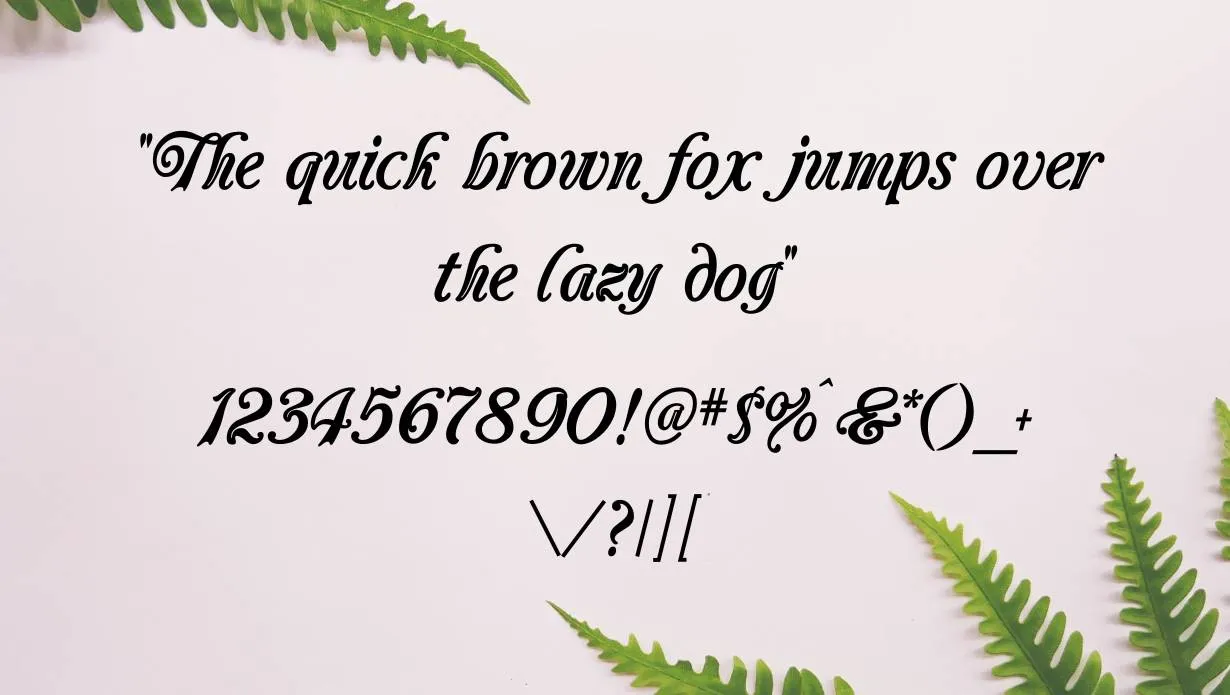
The Carrington Font has a classic and ornate style. Its intricate and decorative letters bring a sense of heritage and refinement to any text. This font commonly comes in TTF and OTF file formats, ensuring compatibility with various design programs.
It’s often used in vintage-themed designs or elegant invitations, adding a touch of historical charm and elegance to the writing. To add pleasantness and precision to your design, consider pairing the typeface style with other typefaces, such as the black ground font, which you can find on our website.